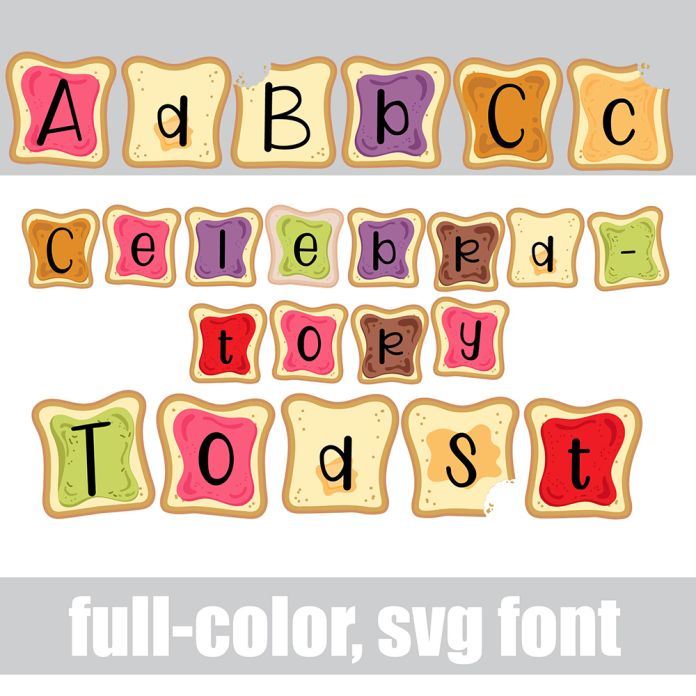
This full-color font features lettering on toasts with butter, jams, peanut butter and more. There is an alt case with an additional color of each letter. This font works best for titles, displays, posters and more. Please note color fonts will show as black in non compatible programs. This font type is compatible with Silhouette Studio.